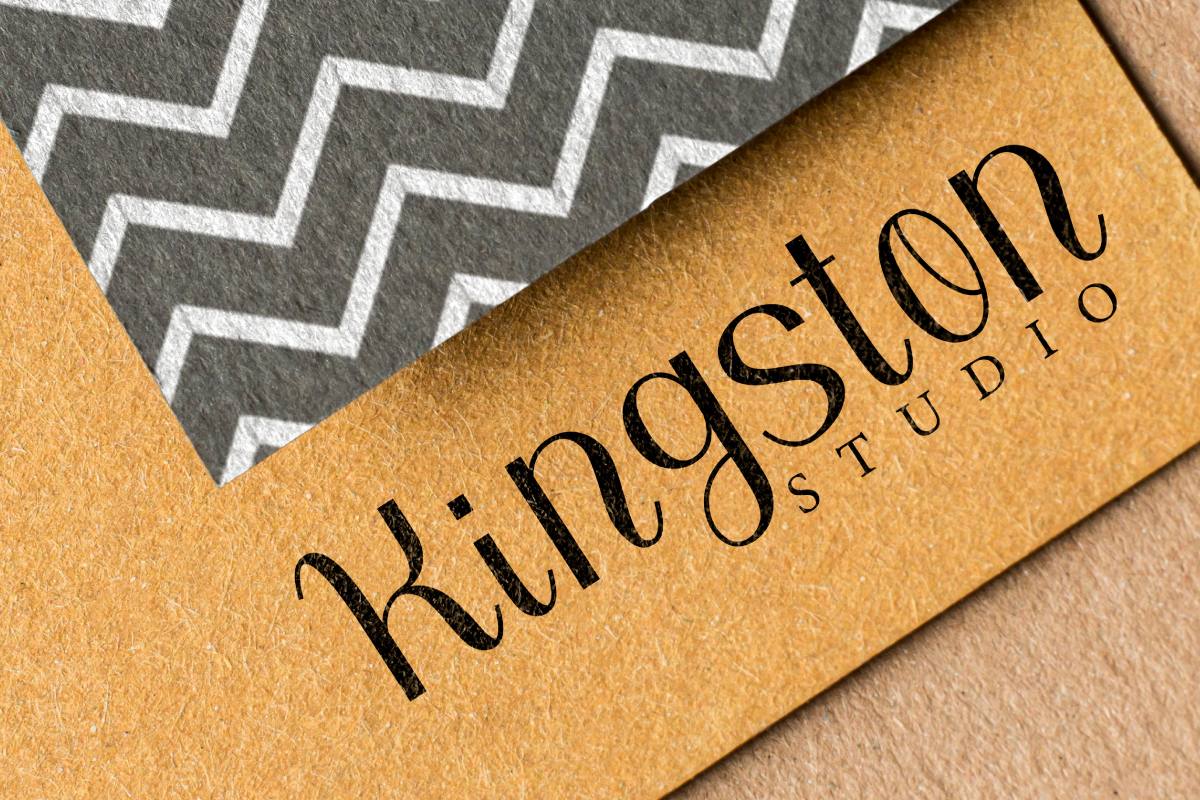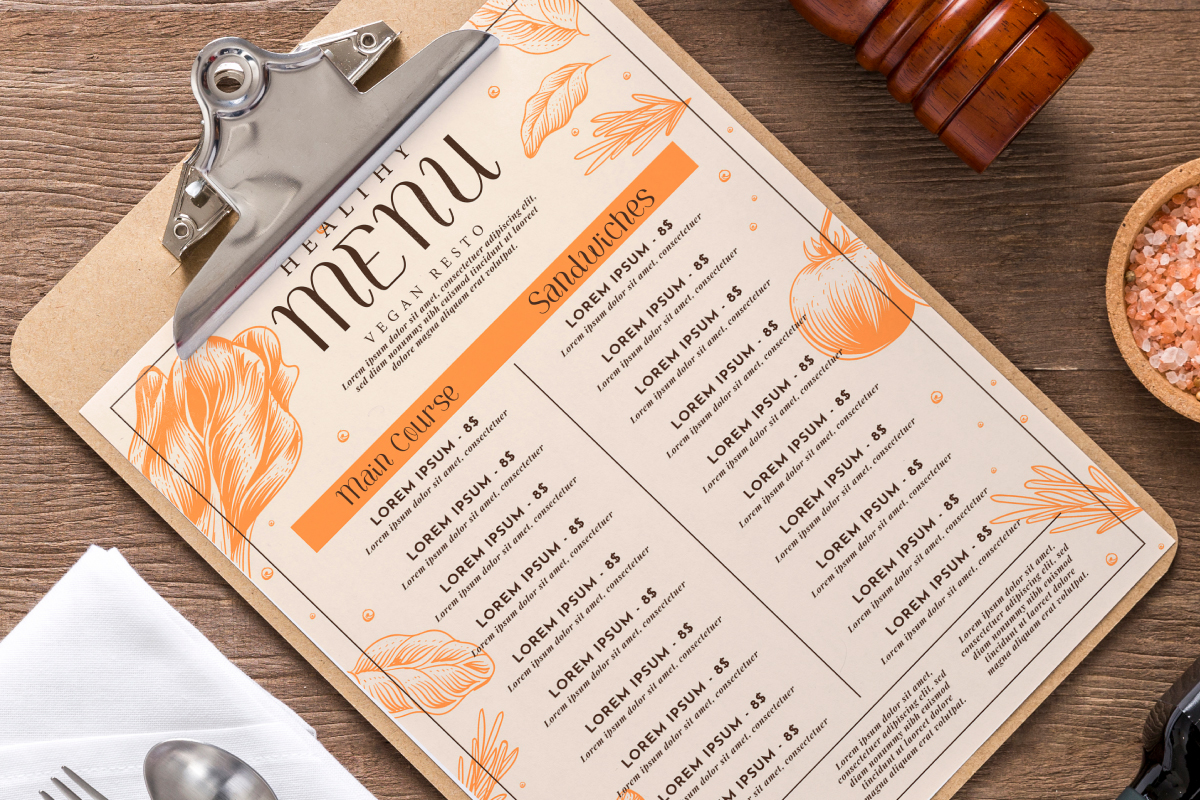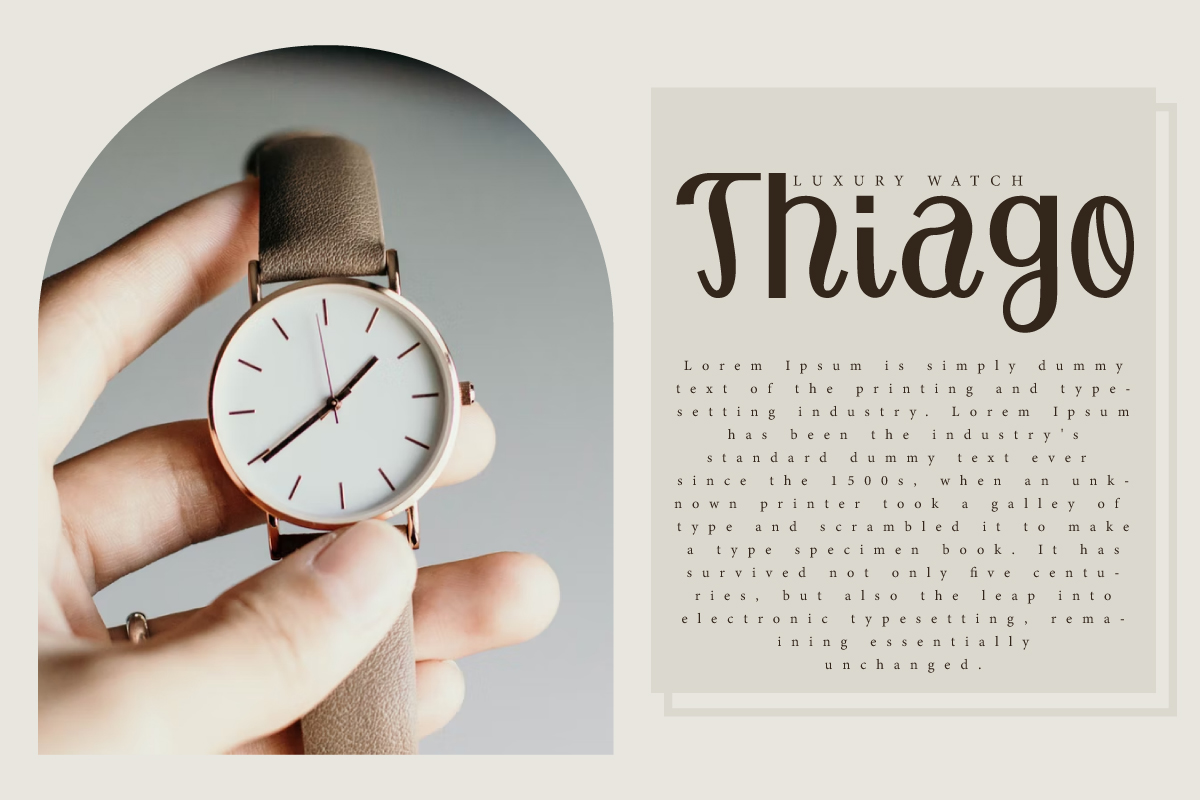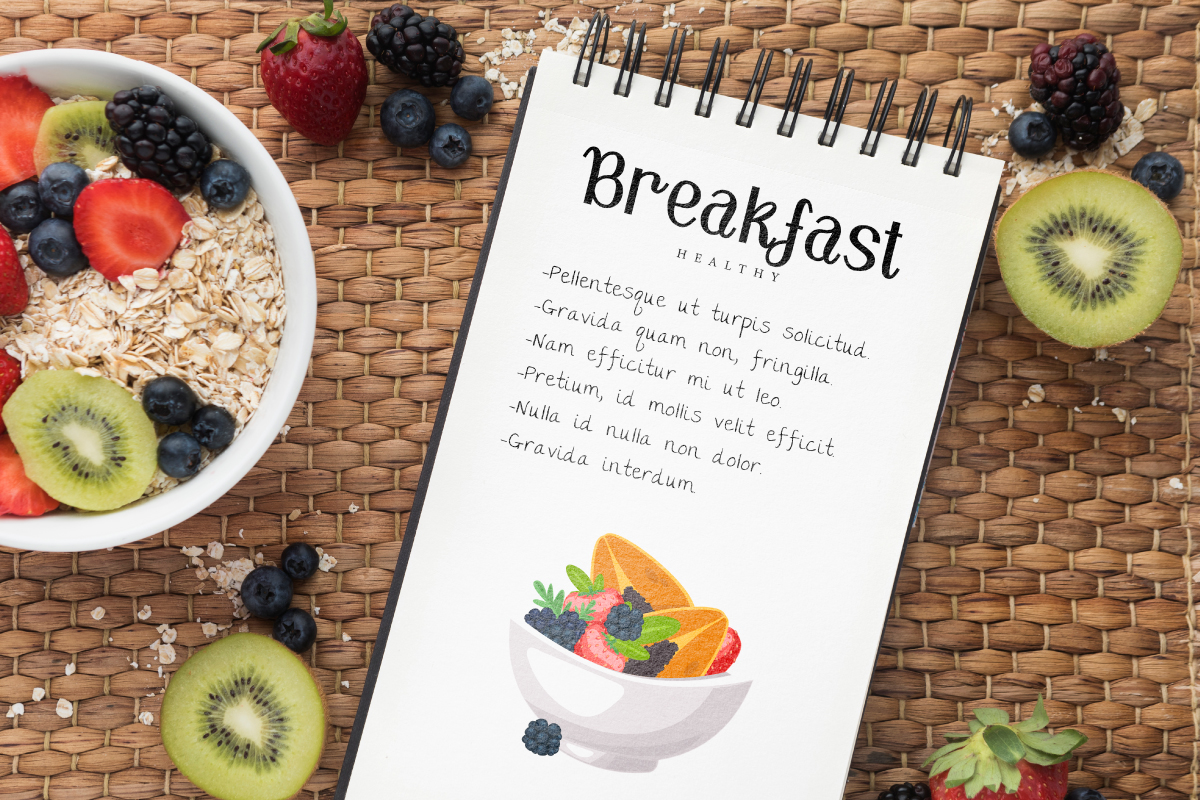
Marginir Font
Marginir Display Font is a modern unique display font with various different styles: Regular, Italic, Bold, and Bold Italic, that which will make your designs attractive! Such as brand logo, business card, custom design, greeting card, invitation, label, menu, poster, product packaging, web page, quotes, etc.